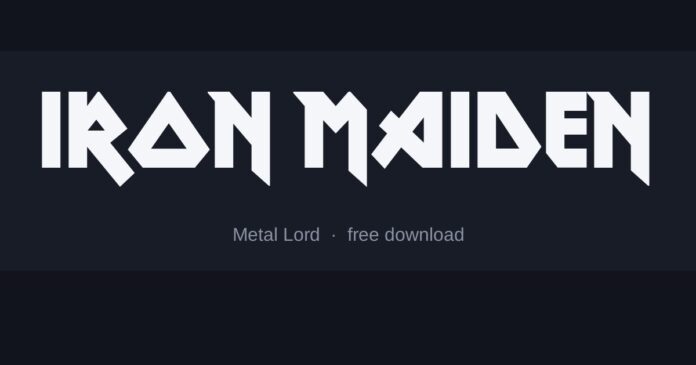
What font is the Iron Maiden logo?
Hand-drawn capitals with hard angular cuts and long spikes on the terminals, essentially unchanged since the late seventies — one of the most consistent logos in music.
The letters are drawn with straight lines almost throughout, which is why it stays legible despite the decoration.
- Metal Lord is the closest available match — angular capitals with extended spiked terminals.
- Squealer is heavier and more gothic, good when you want weight over sharpness.
- Skeletor Stance is thinner and more irregular, closer to a horror treatment.
Where the style comes from
The logo came out of the same London scene that produced the sleeve art, and it was built to survive being spray-painted on a jacket — which forces straight lines and shapes a stencil could hold.
That practical origin is why it still reproduces well at any size, and why imitations that add curves immediately look wrong.
Setting it well
- Keep every stroke straight — a single curve breaks the effect
- Spikes belong on the outer letters; the middle should stay readable
- Set it wide with even spacing, because the original fills its width edge to edge
Is this the exact font used for Iron Maiden?
Not exactly. The original lettering was custom drawn or is not publicly licensed, so the fonts here are close recreations. Metal Lord is the nearest match we have found.